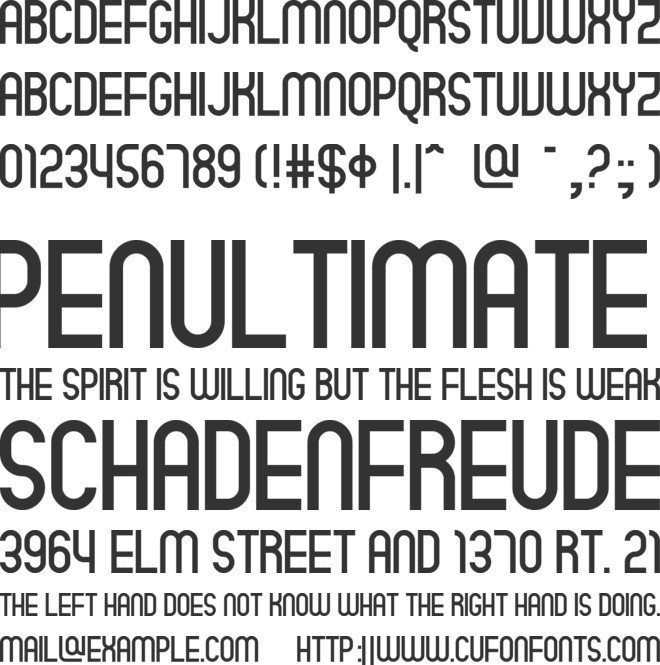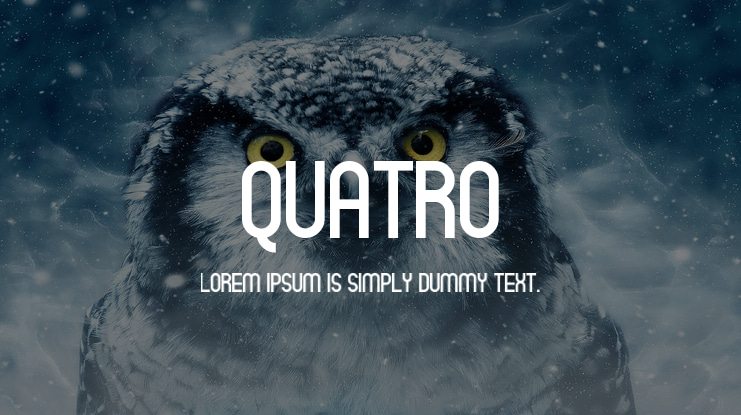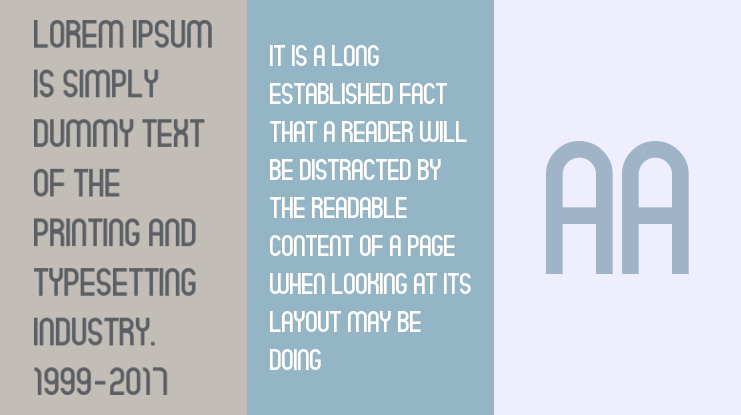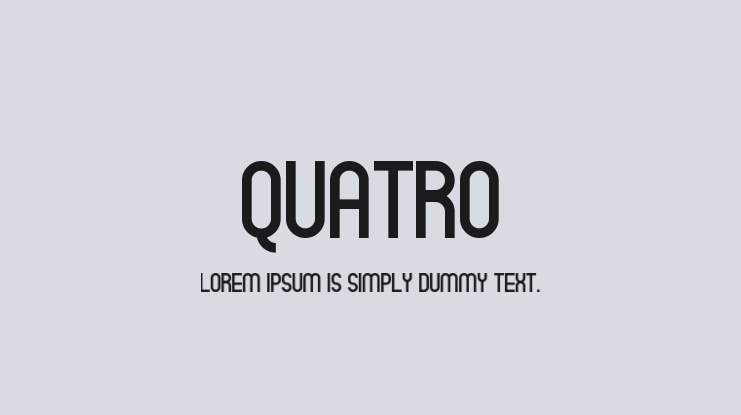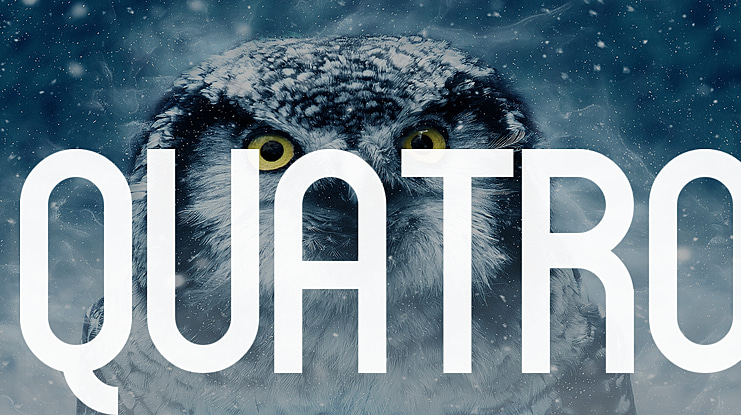
Quatro Font
André Felipe
Inspired by Bauhaus and Herbert Bayer, "Quatro" is a simple font created with only four modules based on circles and squares.